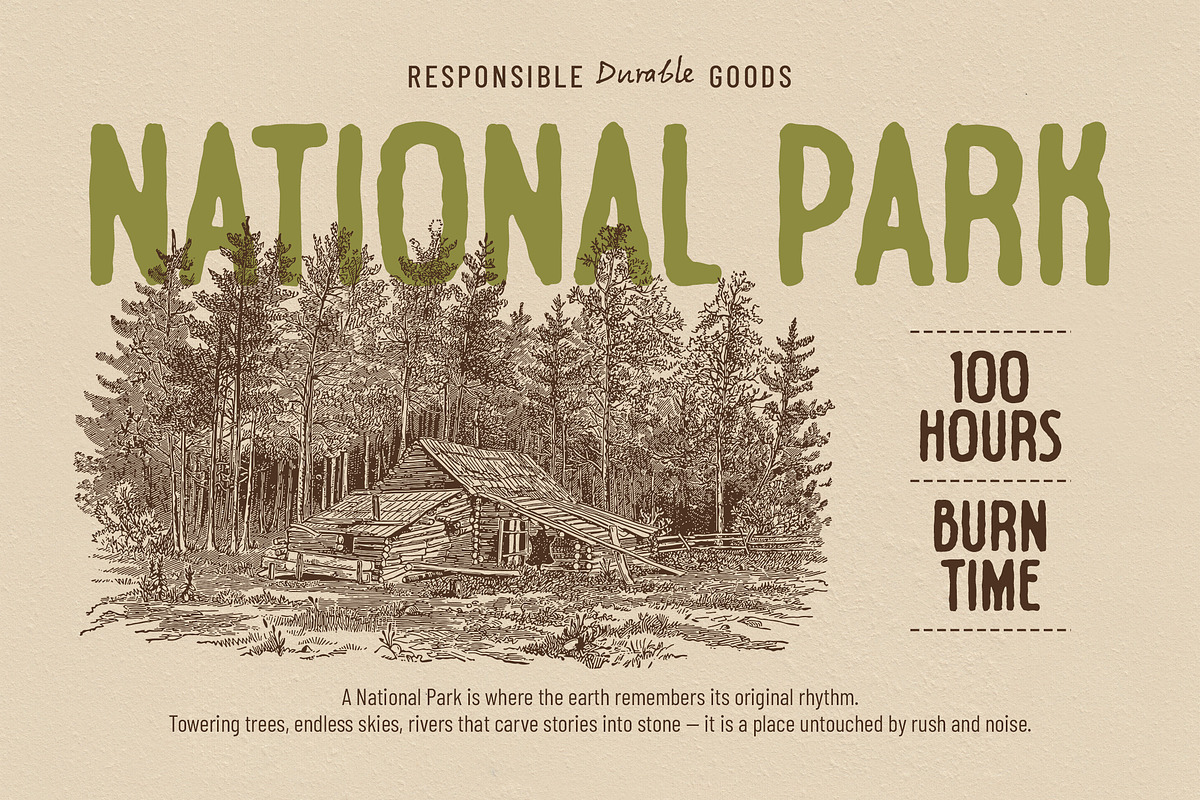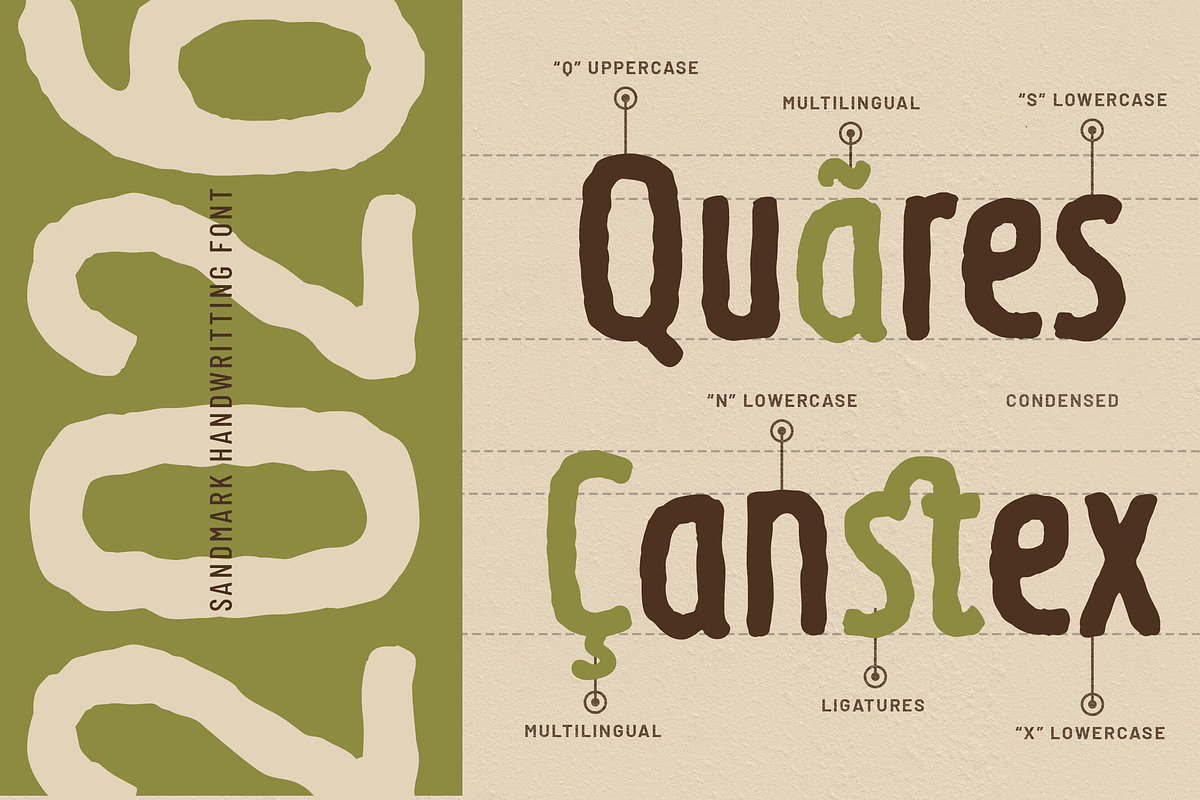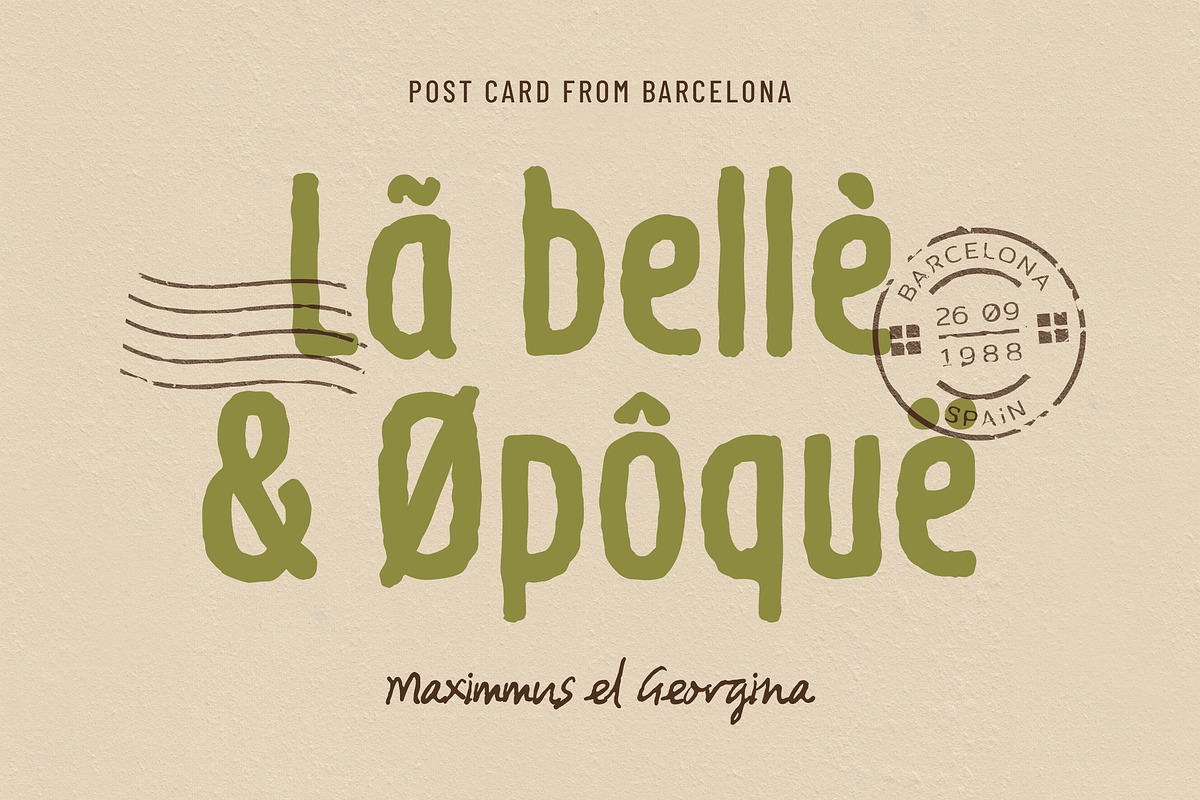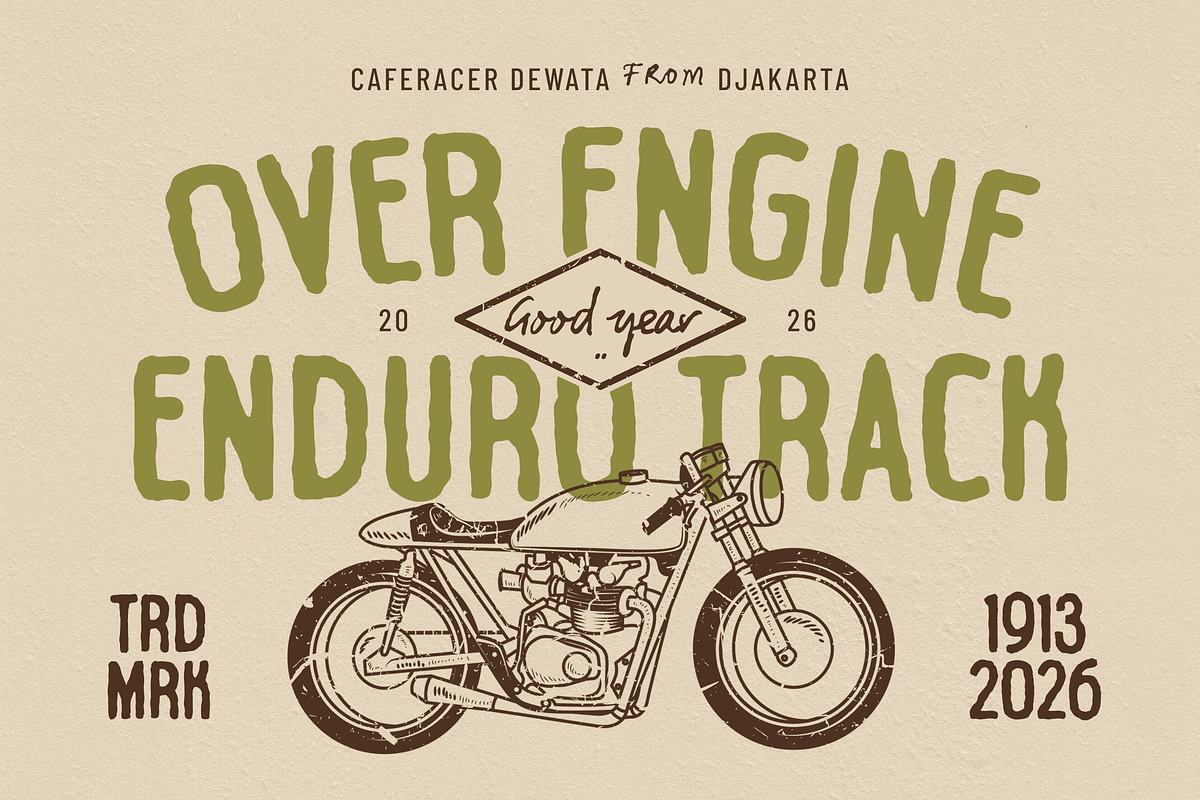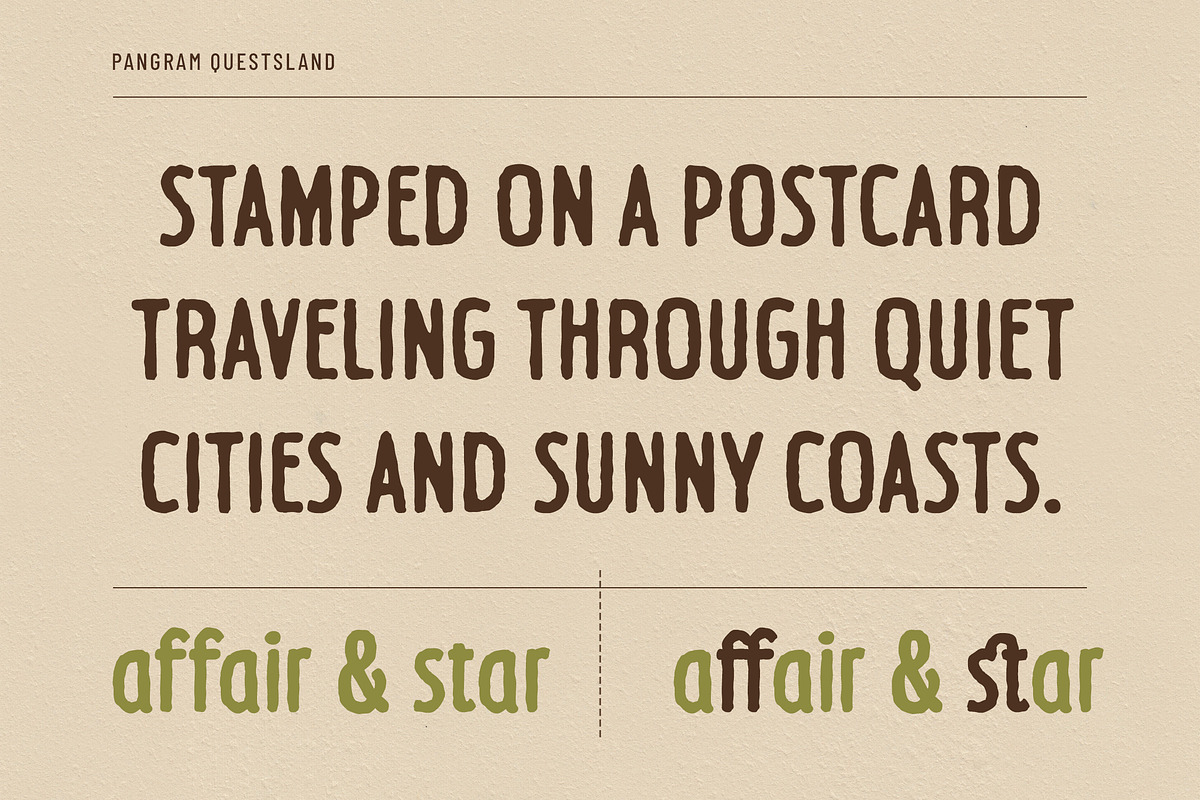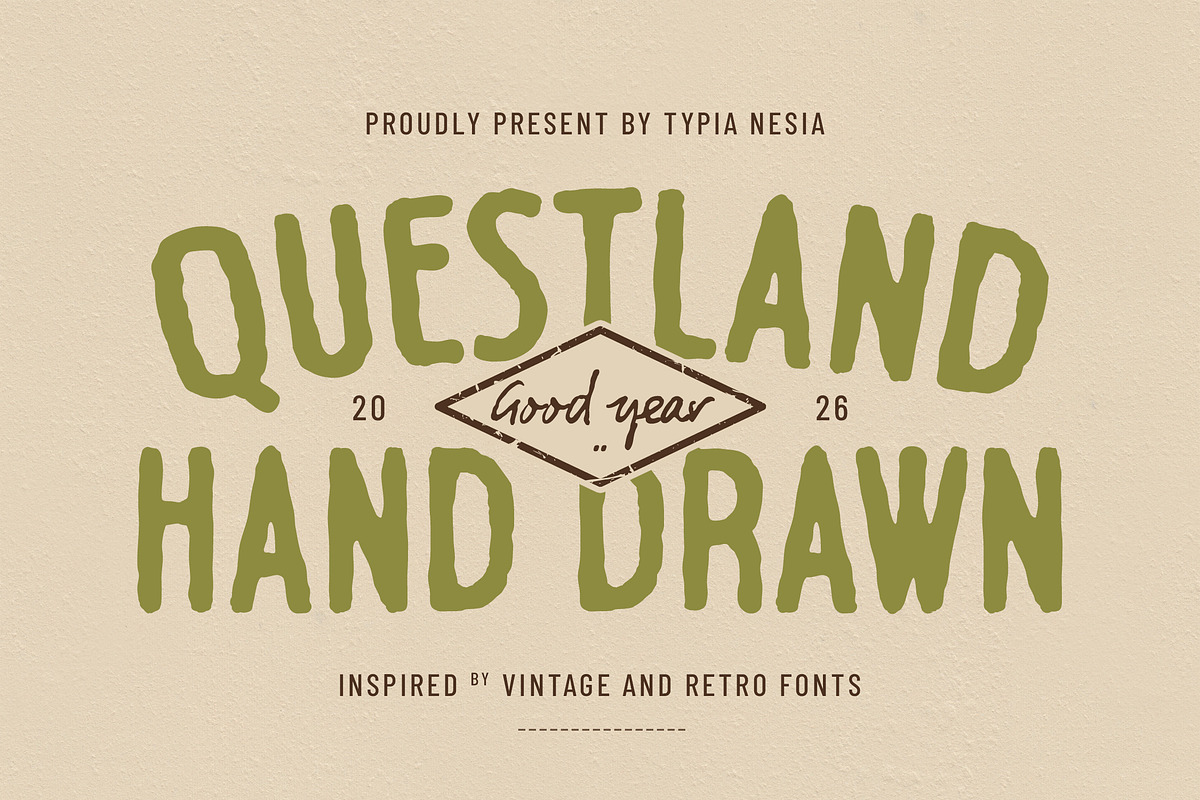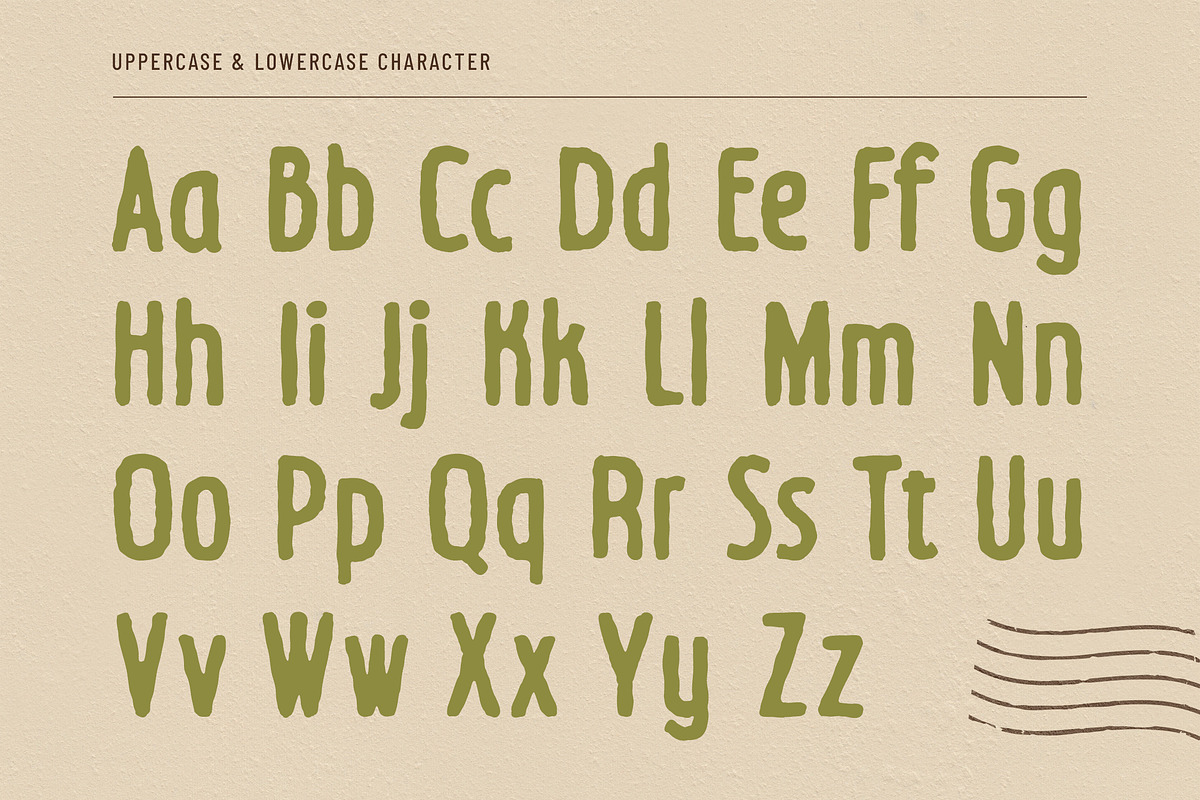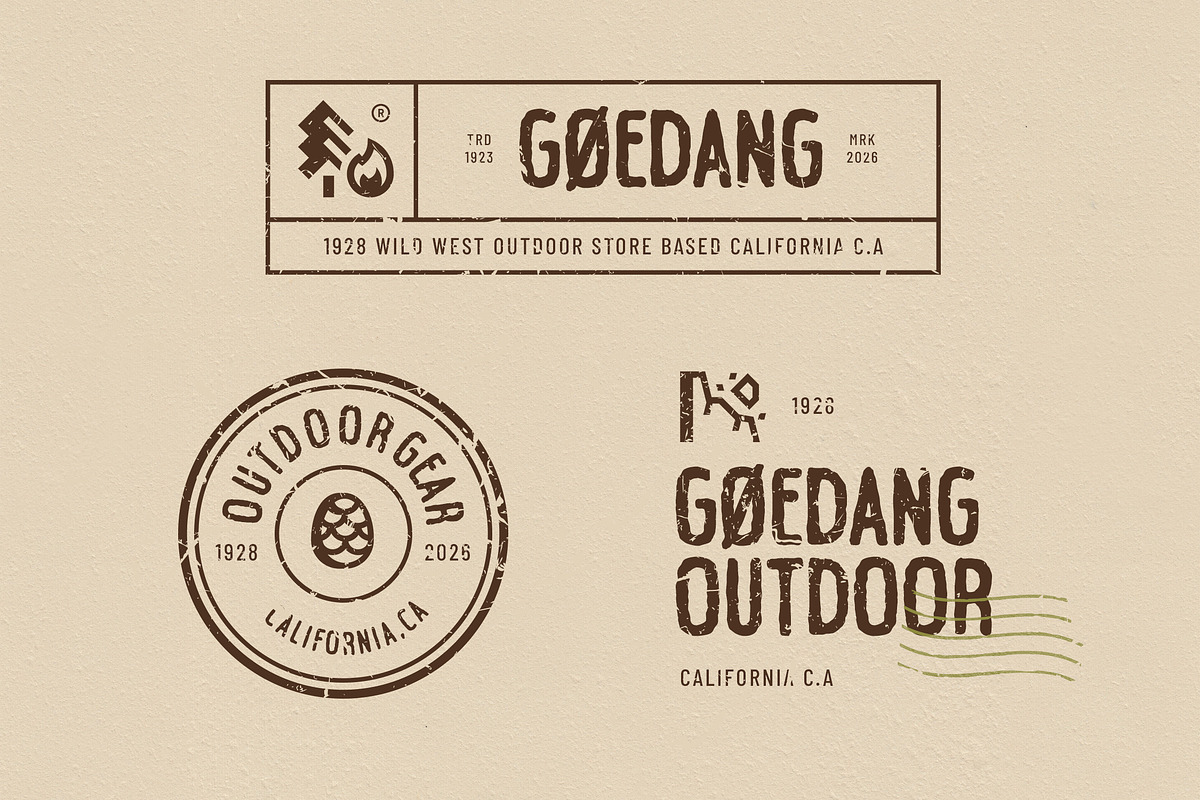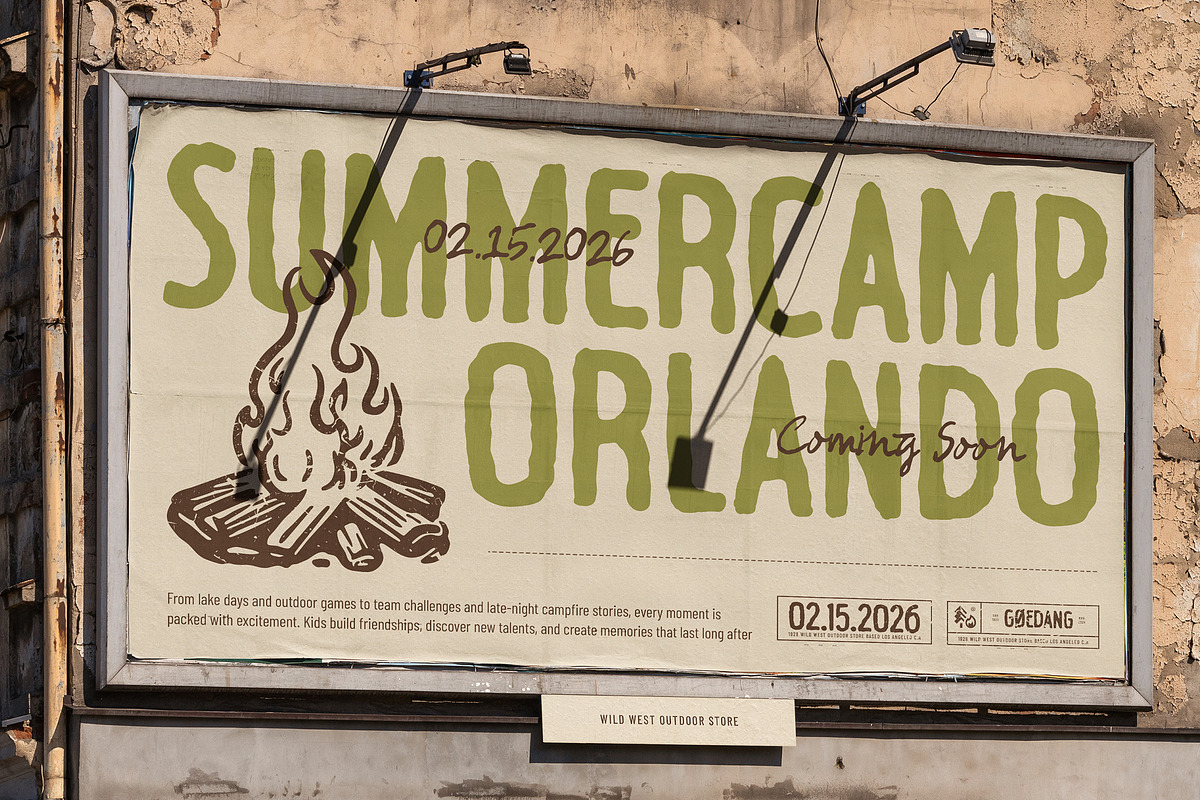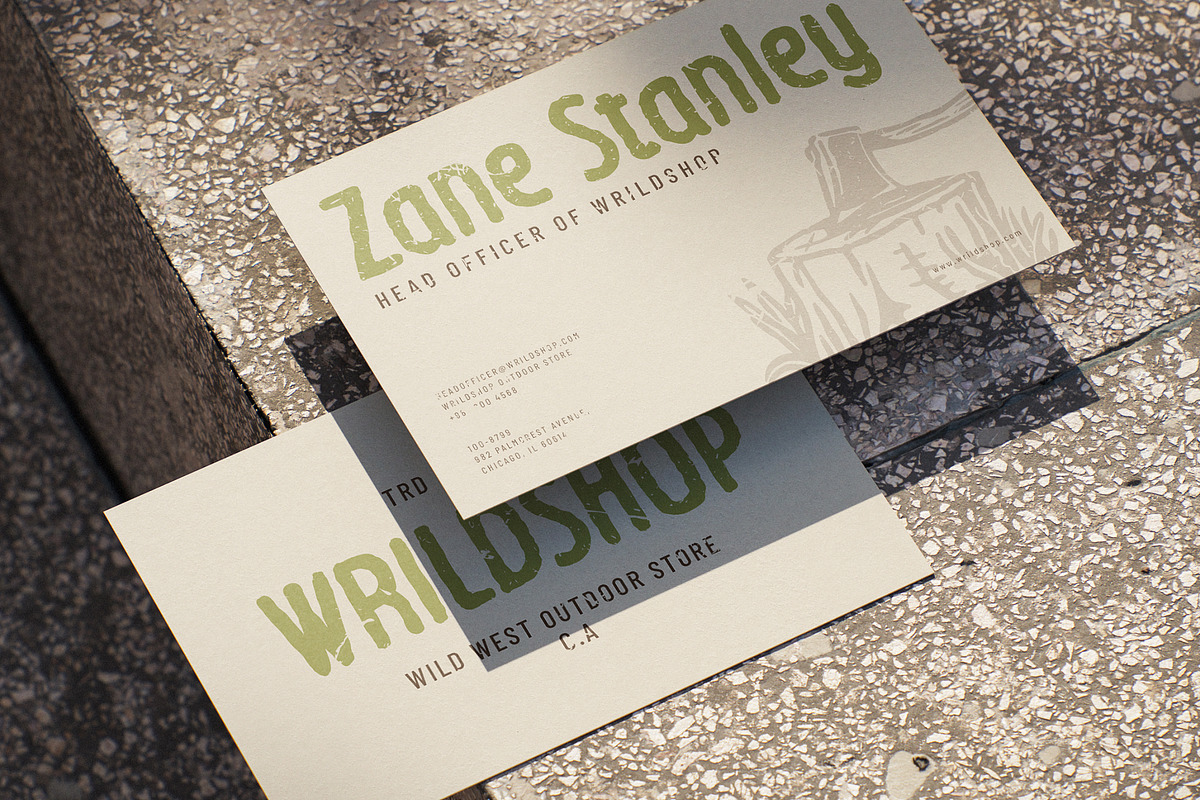
Questland - Rough Vintage HandDrawn
Questland -Rough Vintage Hand Drawn Font - Outdoor Logo Display Font
Questland is a rough vintage hand-drawn font crafted to capture the spirit of adventure and heritage. Designed with textured strokes and rugged details, this typeface blends retro charm with rustic authenticity, creating an organic and naturally imperfect look. Its bold, weathered character evokes classic Western and outdoor aesthetics, making it ideal for logo design, branding, packaging, posters, badges, outdoor gear, adventure themes, Western-inspired projects, and any project that wants to communicate strength, heritage, and a rugged outdoor lifestyle. Questland ensures a bold and memorable visual identity across both print and digital designs.